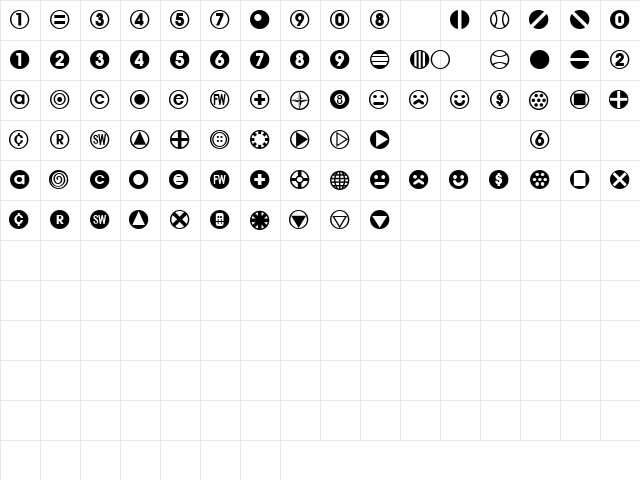
BulletBalls AOE Regular
Design Context for BulletBalls AOE Typeface
BulletBalls AOE is a composed and adaptable typeface that performs quietly and consistently across a wide range of design contexts.